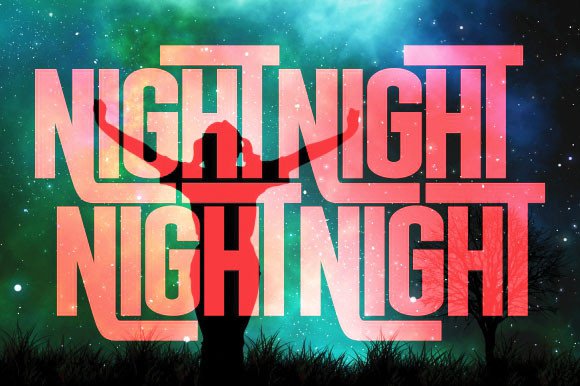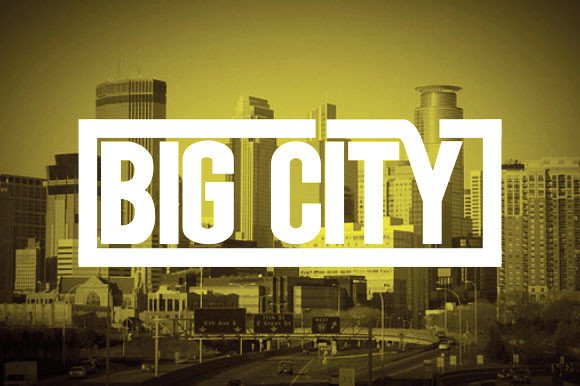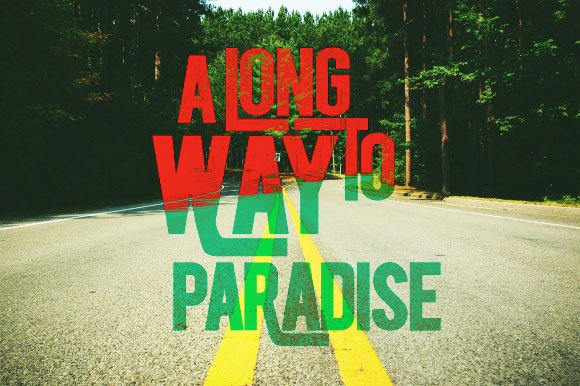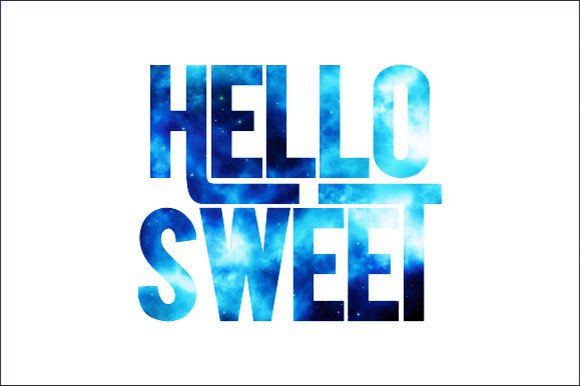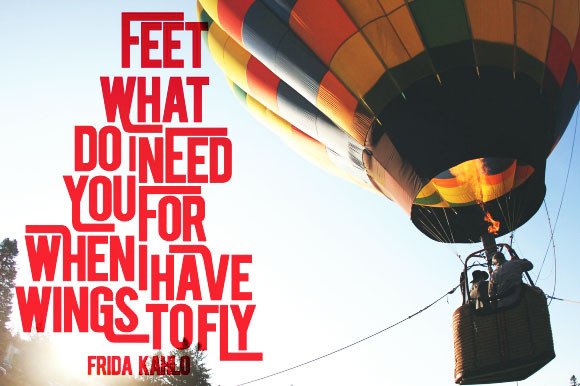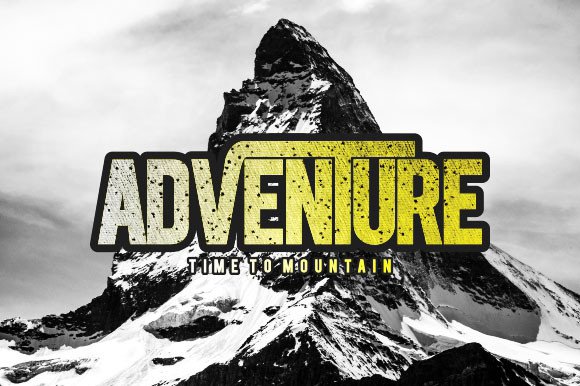
The Berrybold Font: A Game-Changer for Creative Projects
I still remember the frustration of working on a design project, hours spent searching for the perfect font, only to end up with something that just didn’t quite fit. It was like trying to find a needle in a haystack, but the needle was a font that screamed “bold” and “beautiful” while the haystack was a sea of bland, uninspiring options. That’s when I stumbled upon the Berrybold font, and let me tell you, it was a revelation! ✨
So, what makes Berrybold so special? Here are a few things I love about this stunning font:
- ✅ Clean and modern design: Berrybold is sleek, sophisticated, and visually striking.
- ✅ Heavy-weight impact: This font is not for the faint of heart – it’s bold, it’s loud, and it’s confident.
- ✅ Versatility: Berrybold works beautifully for a wide range of creative projects, from branding and advertising to packaging and more.
Of course, no font is perfect, and Berrybold does have a few quirks:
- 🤔 Limited use in body text: Due to its bold nature, Berrybold is best used in moderation, such as in headings or titles.
- ⚠️ Glyph support: While Berrybold has an impressive range of glyphs, some users may find that certain characters are not supported.
The Story Behind Berrybold
While the origins of Berrybold are shrouded in mystery, it’s said that the font was inspired by the geometric shapes and clean lines of modern architecture. The designer, a self-proclaimed font enthusiast, aimed to create a bold, versatile font that would make a statement in any design project.
| Font Name | Berrybold Font |
| Author | Ijem RockArt |
| What is Berrybold best used for? | Berrybold is perfect for creative projects that need a bold, eye-catching font, such as branding, advertising, packaging, and more. |
| Can I use Berrybold for body text? | While Berrybold can be used for body text, it’s generally recommended to use it in moderation, such as in headings or titles, due to its bold nature. |